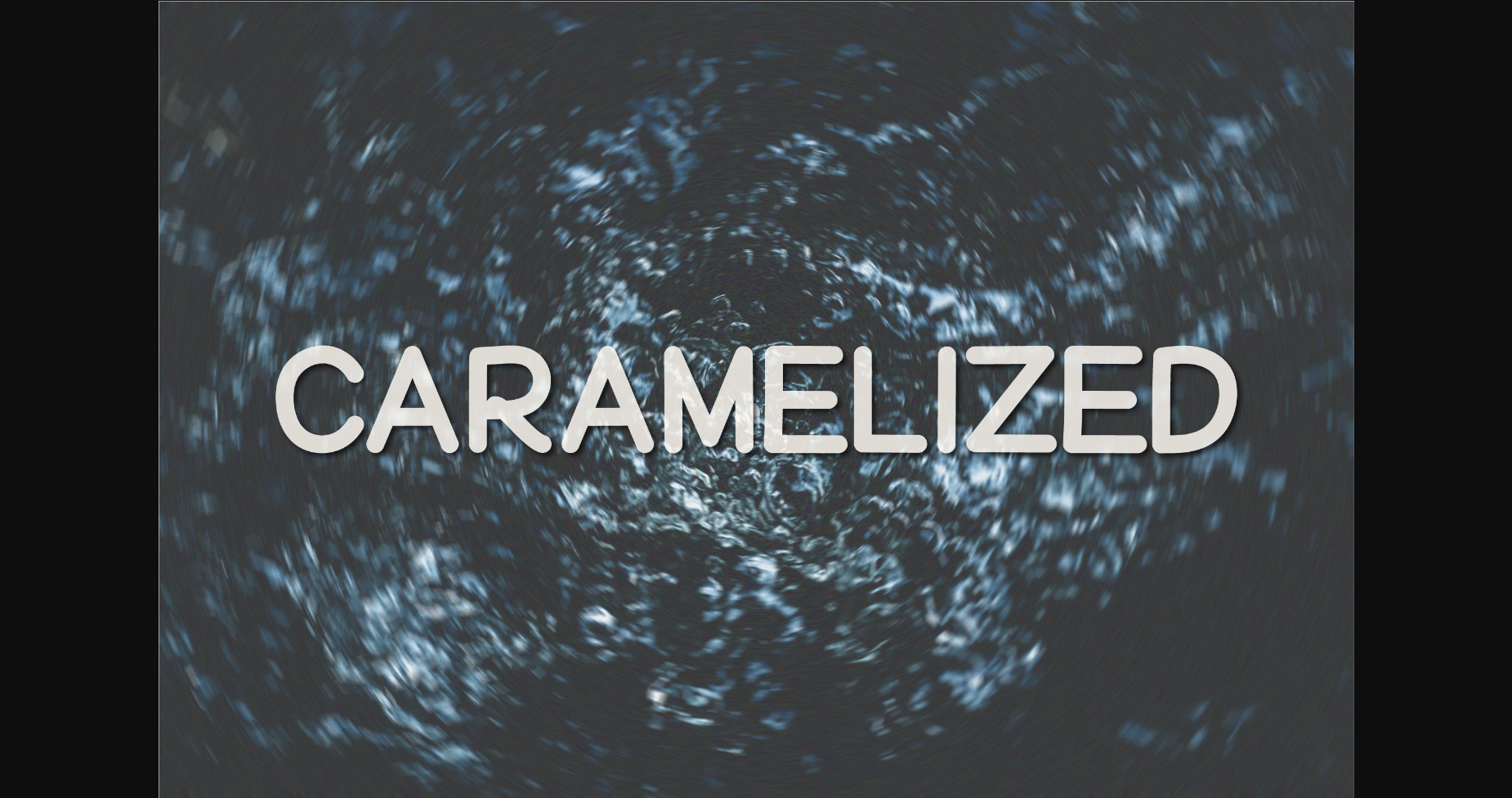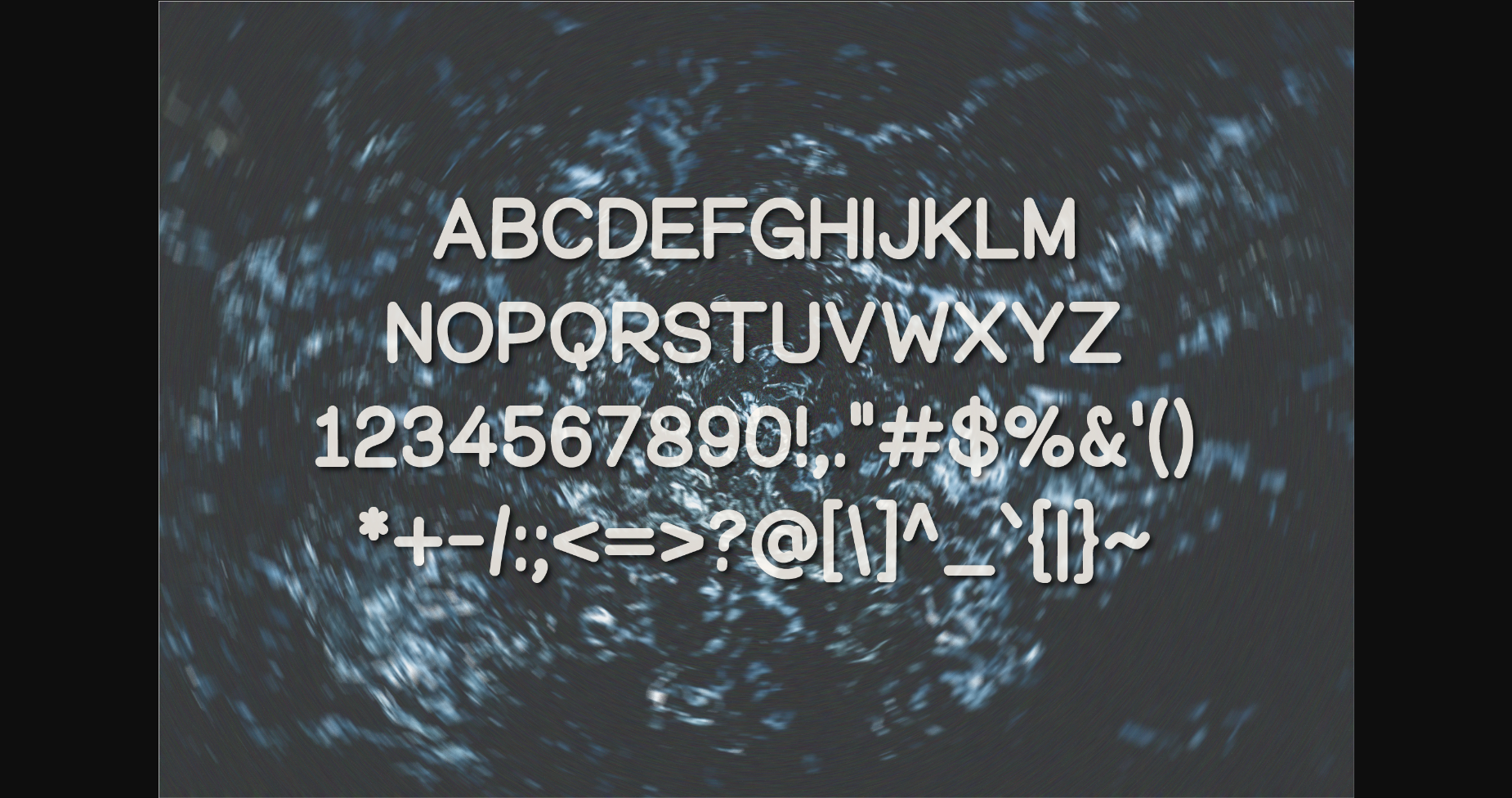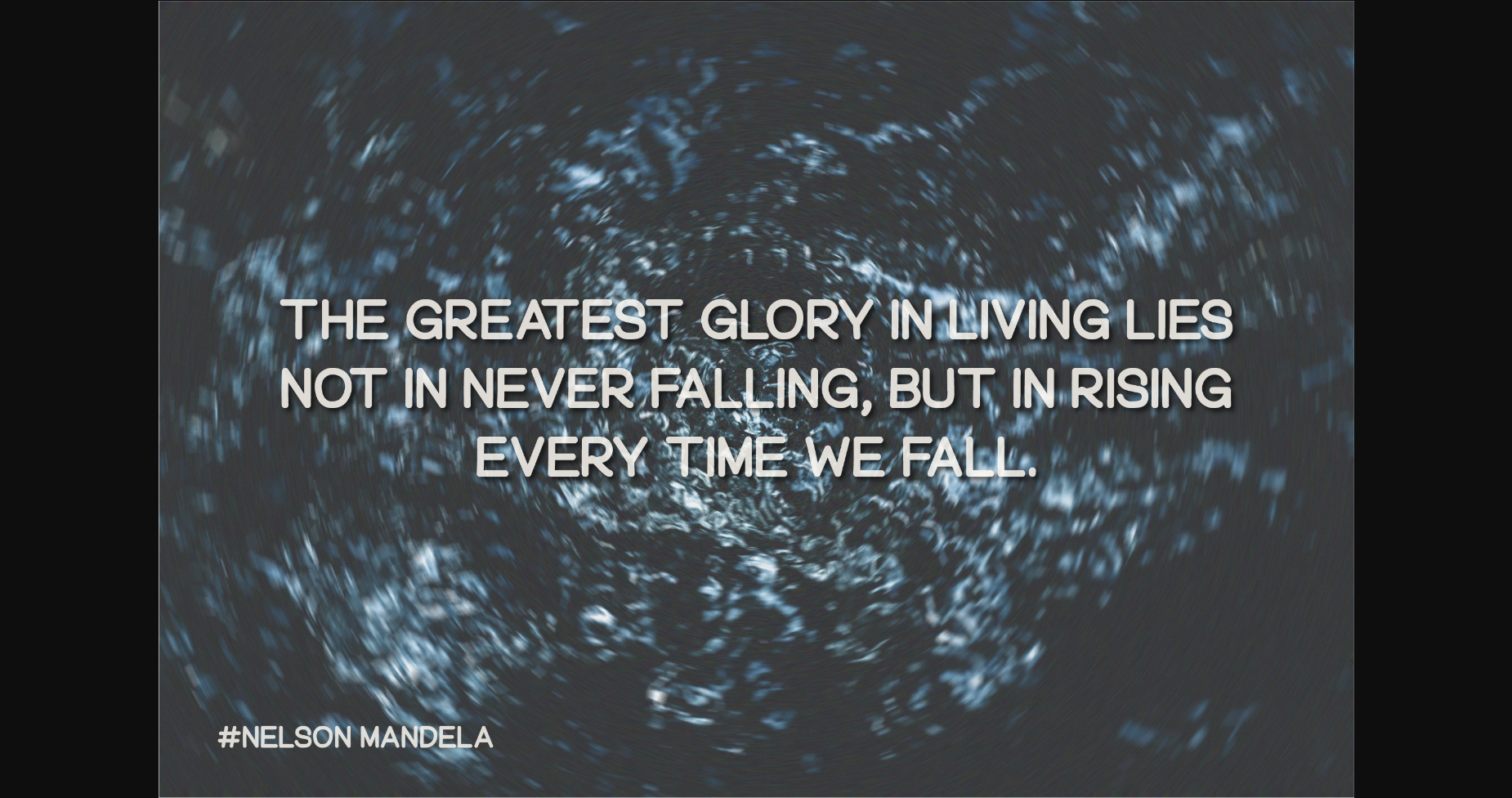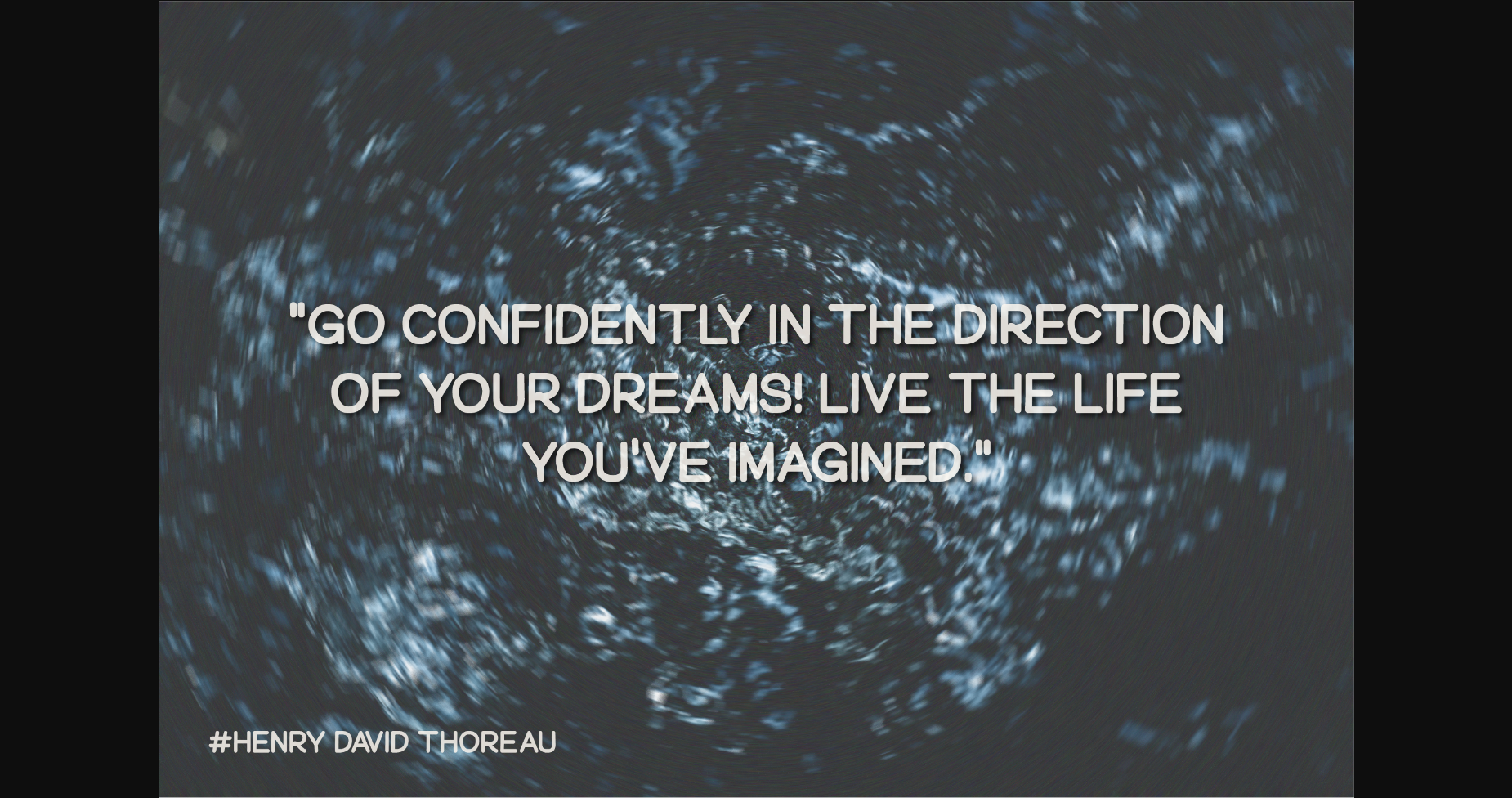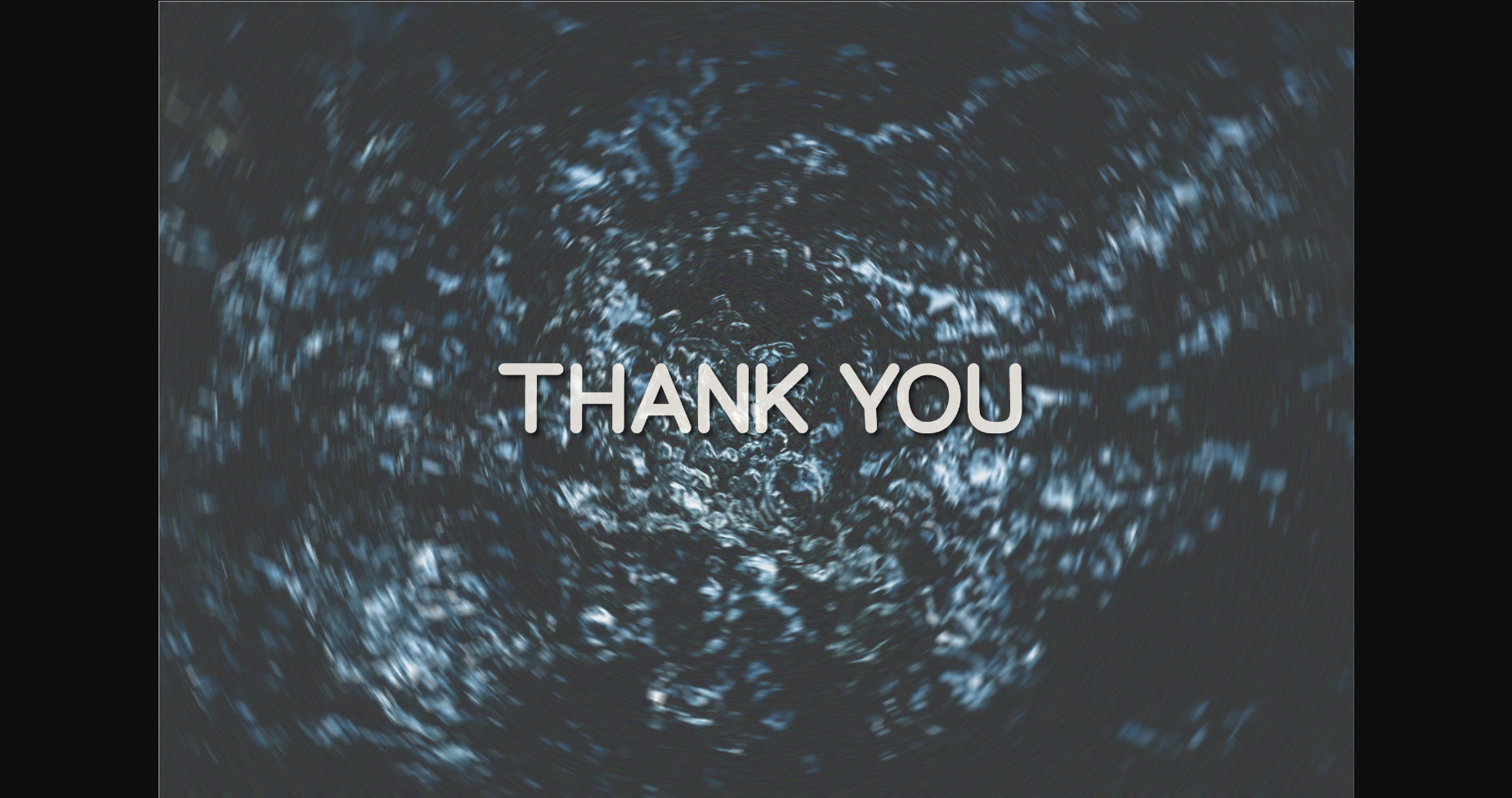
HomeSans Serif FontsCaramelized Font Sans Serif Fonts Caramelized Font FacebookXPinterestWhatsApp 1 of 7 ... Caramelized Font Poster 2... Caramelized Font Poster 3... Caramelized Font Poster 4... Caramelized Font Poster 5... Caramelized Font Poster 6... Caramelized Font Poster 7... About Caramelized Font Caramelized is a quirky all-caps font made up of capital letters. This font is perfect for social media or crafty projects. Simple and smooth perfect for crafting, t-shirts, decals, cards, invitations and so much more. DOWNLOAD NOW People also explored Candy Frost Font Almaheera Font Canned Corn Lavandia Font Signatine Font Whimsical Font Easter Pajamas Mock Up Sport Master Font Eastside Valley Font 438 0 TagsCaramelized Font Previous articleCranberry FontNext articleMarmalade Font LEAVE A REPLY Cancel reply Comment: Please enter your comment! Name:* Please enter your name here Email:* You have entered an incorrect email address! Please enter your email address here Website: Save my name, email, and website in this browser for the next time I comment. Personal Use Free Doodle Font Personal Use Free Read more about this font Aliqa Personal Use Free Read more about this font Dakwart Letter Personal Use Free Read more about this font Manhattan Personal Use Free Read more about this font BLOG 5 Fonts That Will Dominate Design Trends in 2026 5 Fonts for 2026 That Will Dominate Design Trends Typography plays a critical role in visual communication, and as we look ahead to 2026, it’s... Transform Your Website: Elevate Your Typography with 7 Best Web Font Generators Exploring Font Trends Free Fonts Risk: Why Free Fonts Can Be Dangerous for Designers